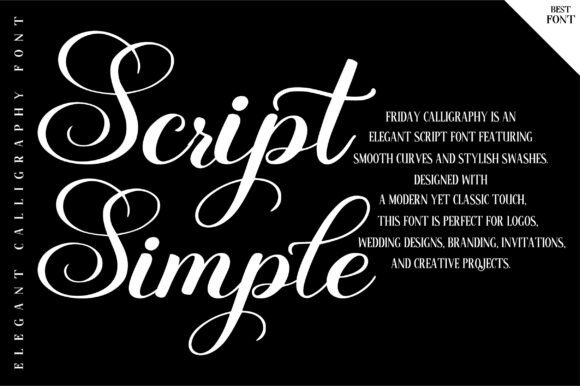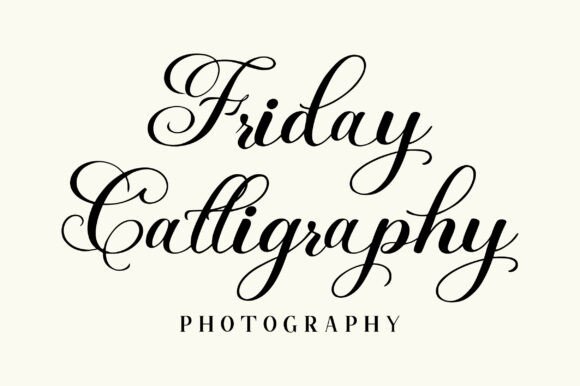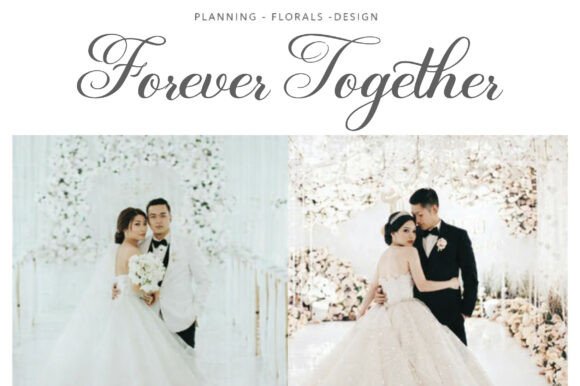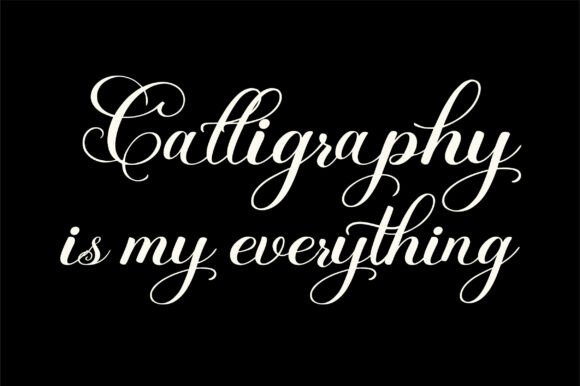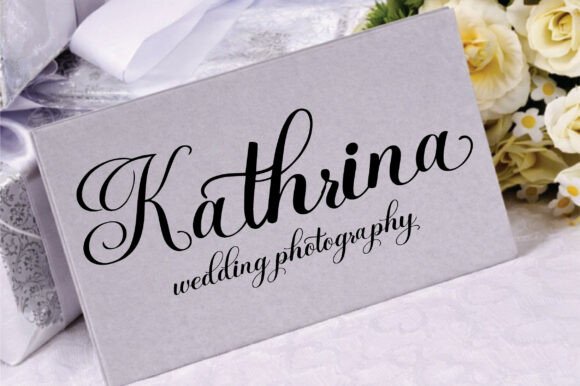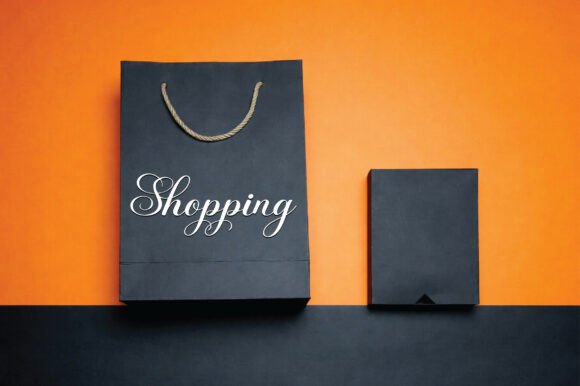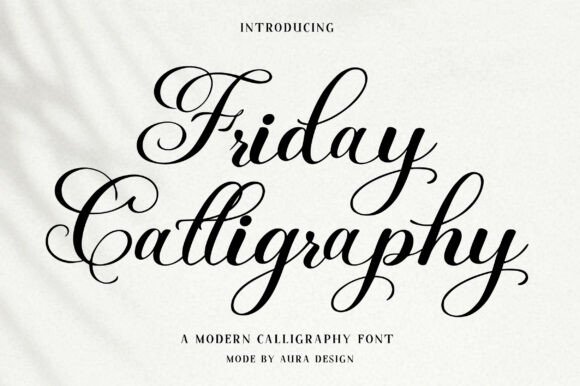
Introducing Friday Calligraphy Font: Elevate Your Designs with Elegance and Sophistication
In the world of typography, calligraphy fonts have always been a popular choice for designers and crafters looking to add a touch of elegance and sophistication to their projects. Among the numerous calligraphy fonts available, Friday Calligraphy stands out as a modern and elegant option that seamlessly blends classic handwritten feel with a contemporary touch.
What Makes Friday Calligraphy Unique?
Friday Calligraphy is a carefully crafted font that boasts smooth curves, stylish swashes, and graceful letterforms. Its unique design makes it perfect for a wide range of applications, including wedding designs, logos, branding, invitations, social media graphics, and luxury projects. Whether you’re a designer looking to create stunning visual content or a crafter seeking to add a personal touch to your projects, Friday Calligraphy is an excellent choice.
Key Features of Friday Calligraphy Font
- Smooth Curves: Friday Calligraphy features smooth, flowing curves that give it a soft and elegant appearance.
- Stylish Swashes: The font includes stylish swashes that add a touch of sophistication and flair to your designs.
- Graceful Letterforms: Each letterform is carefully crafted to exude a sense of elegance and refinement.
- Classic Handwritten Feel: Friday Calligraphy has a classic handwritten feel that adds a personal touch to your designs.
- Contemporary Touch: The font also has a contemporary touch that makes it perfect for modern designs and projects.
Friday Calligraphy is a versatile font that can be used for a wide range of projects, including:
- Wedding Designs: Create stunning wedding invitations, programs, and decorations with Friday Calligraphy.
- Logos and Branding: Use Friday Calligraphy to create elegant and sophisticated logos and branding materials.
- Invitations: Design beautiful invitations for special occasions, such as baby showers, birthday parties, and graduations.
- Social Media Graphics: Add a touch of elegance to your social media graphics, such as Instagram posts and Facebook covers.
- Luxury Projects: Use Friday Calligraphy to create luxurious and high-end designs for clients or personal projects.
Why Choose Friday Calligraphy?
Friday Calligraphy is designed to feel romantic yet professional, making it an excellent choice for designers and crafters looking to add charm and sophistication to their projects. With Friday Calligraphy, you can:
- Add Elegance to Your Designs: Friday Calligraphy brings a touch of elegance and refinement to your designs.
- Create Unique and Memorable Content: The font’s unique design ensures that your content stands out and leaves a lasting impression.
Friday Calligraphy Font is an exceptional choice for designers and crafters seeking to elevate their designs with elegance and sophistication. Its unique blend of classic handwritten feel and contemporary touch makes it perfect for a wide range of projects. With its smooth curves, stylish swashes, and graceful letterforms, Friday Calligraphy is sure to add charm and sophistication to every word.